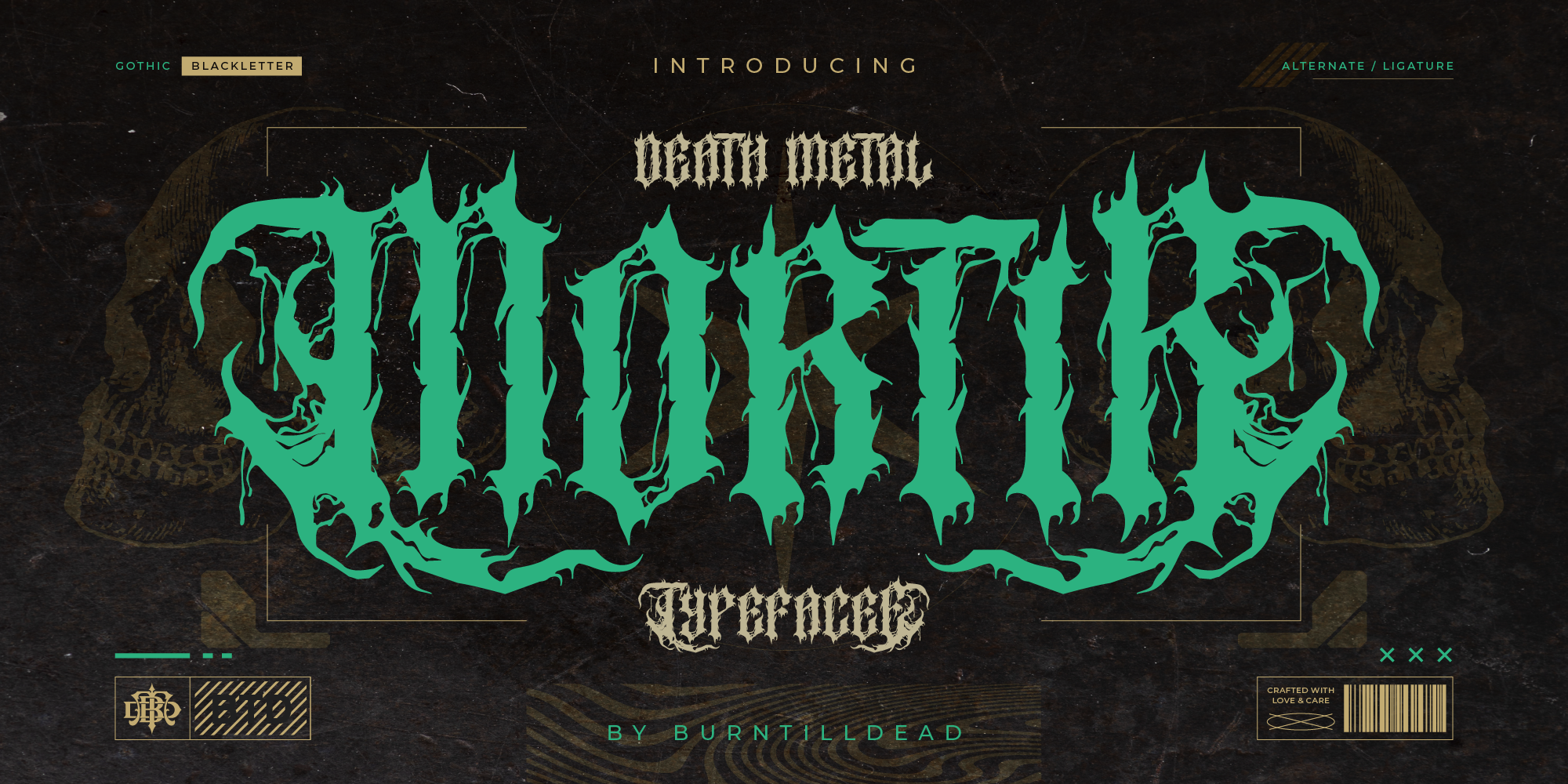
Mortir Death Metal Font is perfect for death metal band logos, extreme music festival posters, underground record labels, metal merchandise designs, horror movie titles, brutal music venues, extreme sports branding, dark tattoo parlor signage, aggressive gaming graphics, and authentic metalcore culture designs.
Mortir Death Metal Font is exciting because it crushes through ordinary typography with brutal intensity and uncompromising aggression through devastating letterforms that capture the raw power and relentless brutality of death metal music, making it perfect for brands that need to communicate extreme intensity and underground authenticity.
The Mortir Death Metal Font family includes regular and distressed weights with brutal alternates, metal-inspired textures, and aggressive decorative elements, providing designers with crushing tools for creating typography that devastates with authentic metal credibility and underground attitude.
When your project demands brutal intensity and death metal authenticity, Mortir Death Metal Font Free Download delivers the perfect typographic assault for extreme music communications. This devastating display typeface combines underground metal culture with professional functionality, ensuring your brands resonate with audiences seeking genuine extreme music experiences and brutal artistic expression. The crushing letterforms and metal-inspired styling make this font an essential choice for metal bands, extreme venues, and any application where death metal intensity, underground credibility, and brutal authenticity are crucial for establishing dominance in the competitive extreme music scene where only the most crushing and uncompromising typography can survive the relentless brutality of true metalcore culture.